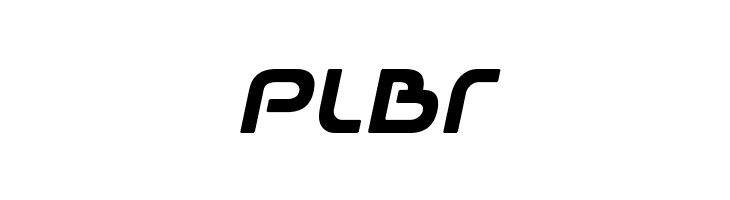
Life in Space Italic Font
- Font: Life in Space Italic
A modern italic font with a sleek, dynamic style and smooth, rounded edges.
( Fonts by Iconian Fonts - Daniel Zadorozny )